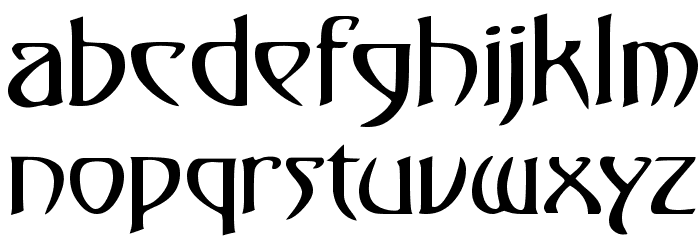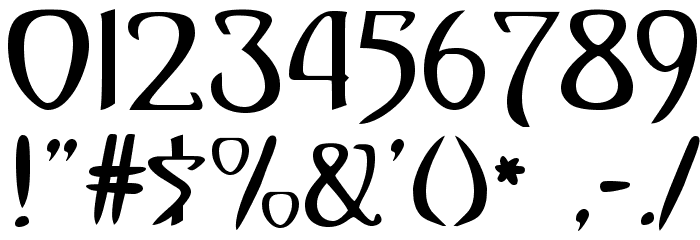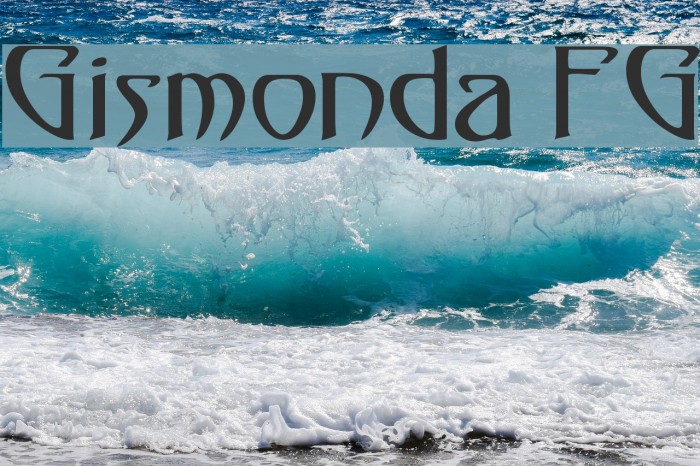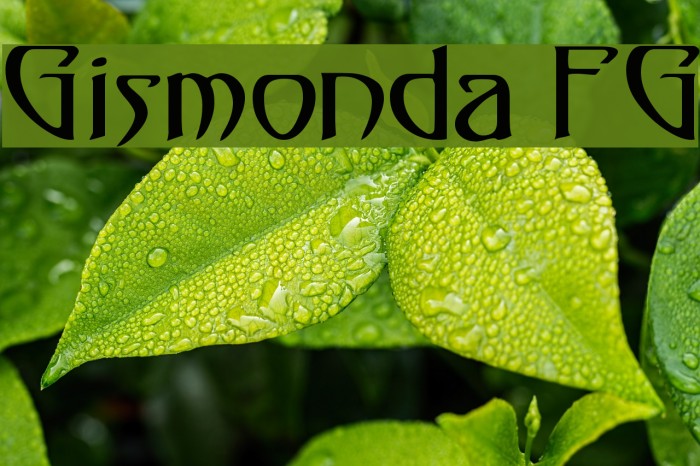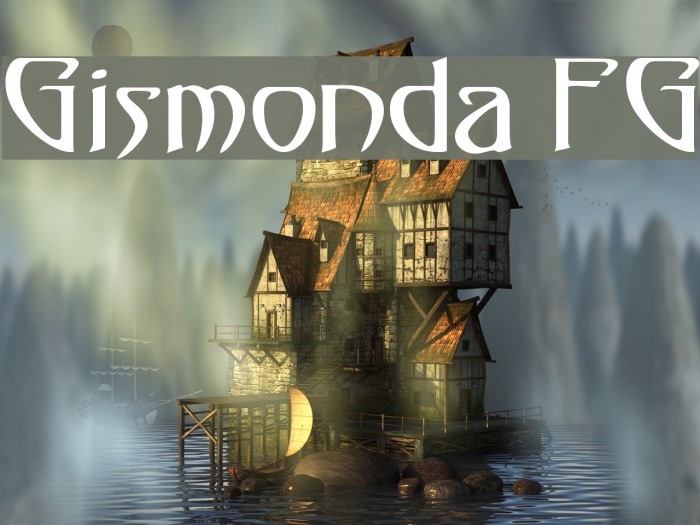
Gismonda FG Font
This font features a unique and artistic style with a blend of sharp angles and smooth curves, creating a dynamic and eye-catching appearance. The uppercase letters are bold and slightly condensed, with distinctive serifs that add a touch of elegance. The lowercase letters maintain the same artistic flair, with a consistent stroke width that enhances readability. Numbers are designed with a similar aesthetic, ensuring uniformity across all characters. Special characters are crafted with the same attention to detail, making this font versatile for various design needs.
An artistic and dynamic font with sharp angles and smooth curves.
- Proposed Projects: Ideal for branding, posters, and creative projects that require a distinctive and artistic touch.